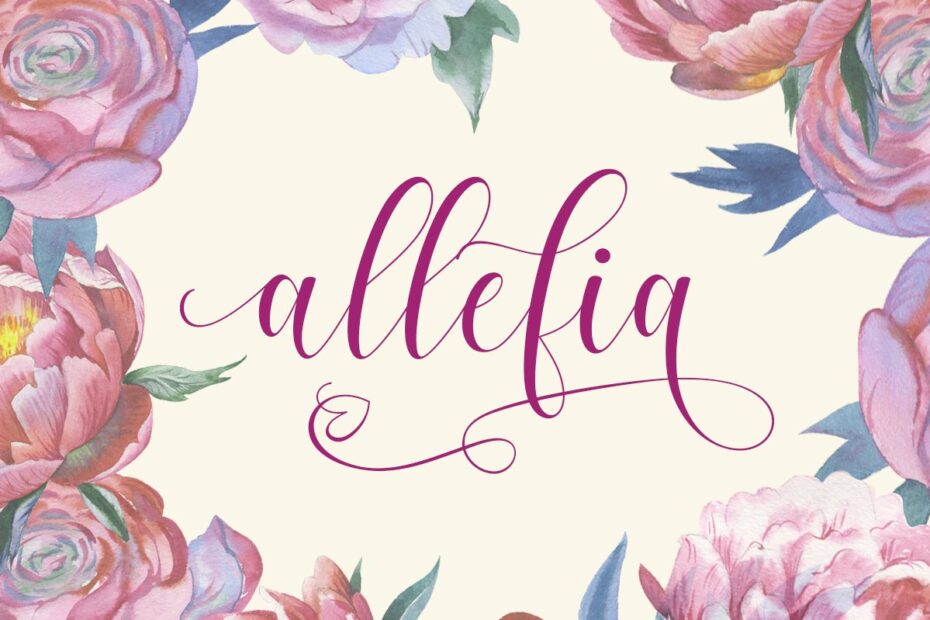
Unleashing the Art of Modern Calligraphy
There’s something magical about the moment when a design comes together – the perfect combination of colors, textures, and typography that transports your audience to a world of elegance and sophistication. For many designers, this moment is all about finding the perfect font to bring their vision to life.
Enter Allefia Font, a stunning modern calligraphy font that boasts an impressive 540 gorgeous glyphs. This beautiful script font is perfect for adding a touch of femininity, elegance, and romance to your designs. Whether you’re creating a wedding invitation, a blog post, or a social media graphic, Allefia Font is an invaluable addition to your design toolkit.
Allefia Font Key Features
- Character Set: The font includes a comprehensive character set, covering Latin, Cyrillic, and Greek alphabets, making it suitable for multilingual designs and applications.
- Unique Characteristics: The font features a unique blend of modern and elegant design elements, with subtle flair and refined lines, making it ideal for high-end designs, luxury branding, and sophisticated typography.
- Font Weight and Style: Allefia Font comes in multiple weights, including Light, Regular, Bold, and Black, as well as several styles, such as Italic, Oblique, and Condensed, offering flexibility and versatility for various design applications.
Allefia Font Review
I recently had the chance to work with the Allefia font, and I must say, it has some great qualities. ✨ Firstly, its unique blend of modern and vintage elements makes it perfect for projects that need a touch of sophistication. ✨ The font’s high x-height and strong vertical axis give it a strong, eye-catching presence on the screen. ✨ Additionally, the font’s versatility in terms of style and size makes it suitable for a wide range of applications, from headings to body text.
- Perfect blend of modern and vintage elements
- High x-height and strong vertical axis
- Versatility in terms of style and size
However, there are some limitations to consider. ⚠️ The font may not be suitable for projects that require a very minimalist aesthetic, as its bold lines and ornaments can be a bit overwhelming. ⚠️ Additionally, the font’s complexity may lead to some issues with rendering on certain devices or in certain contexts.
Overall, I think the Allefia font is a great choice for designers who want to add some visual interest to their projects. While it may not be perfect for every situation, its unique qualities and versatility make it a solid addition to any font collection.
Allefia Font works well for titles and headings in Canva, adding a touch of elegance to your designs.
Allefia Font is particularly suitable for creating custom logos and typography elements in Adobe Photoshop and Illustrator.
Allefia Font works well for titles and headings in PowerPoint and Word, adding a touch of sophistication to your presentations and documents.
Allefia Font is ideal for:
- Creating elegant titles and headings.
- Designing custom logos and typography elements.